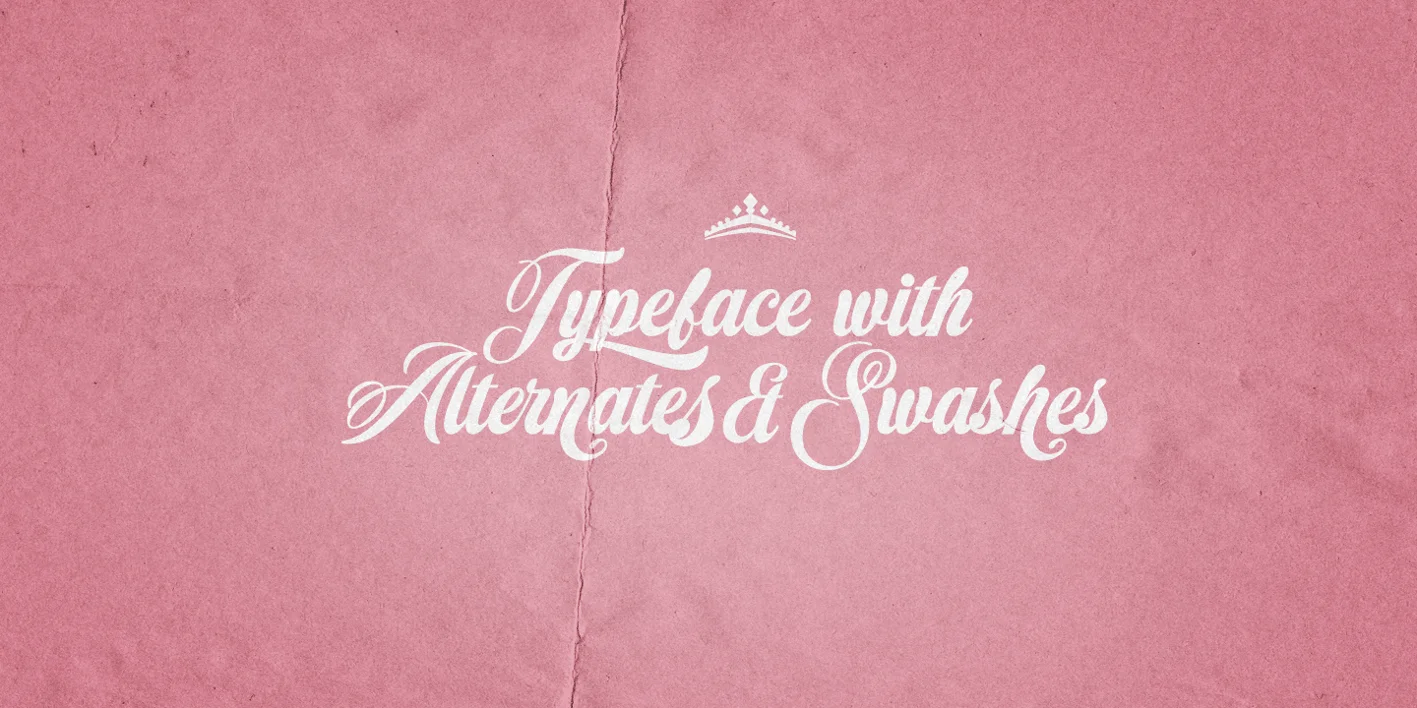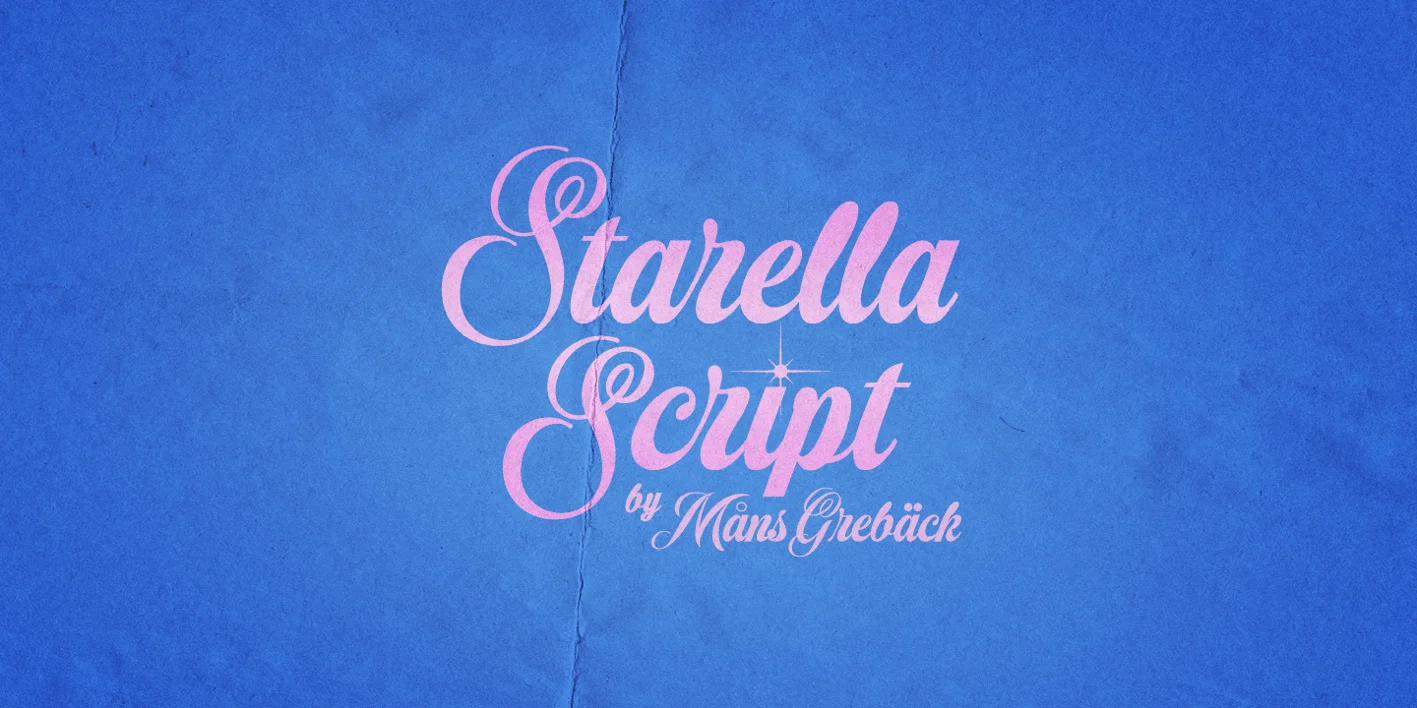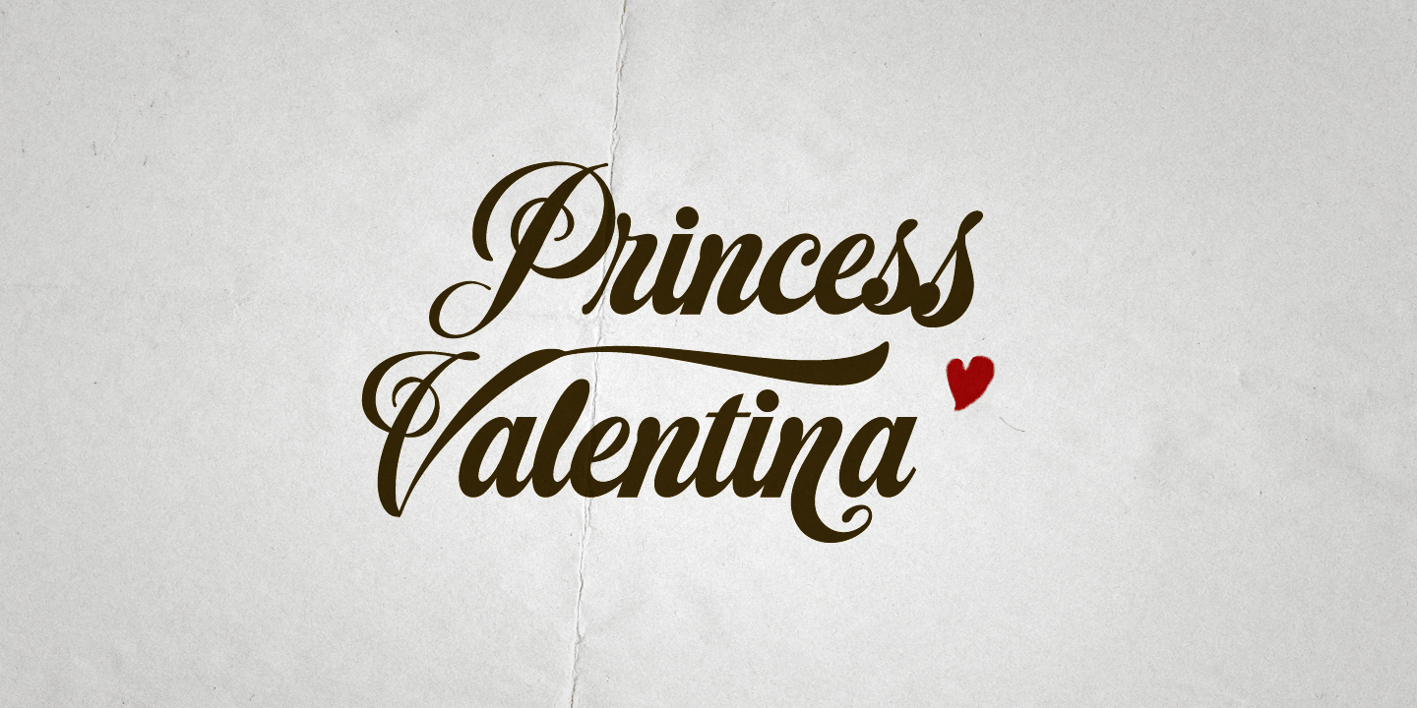
Starella Script Font
When a design brief calls for both visual harmony and precise spacing and immediate visual impact, type choices matter — Starella Script answers that brief. The typeface brings an elegant, calligraphic sensibility to a broad range of creative disciplines, with strong typographic hierarchy support that holds up whether the work is print-first or screen-first.
In practice, Starella Script proves particularly effective for perfume labels, advertising campaigns, wedding invitations, feminine branding, luxury stationery. Designers reaching for it find that the type decisions feel resolved rather than laboured — a useful quality when client timelines are tight.
The range of applications extends to greeting cards, brand identity systems, social media graphics, logo design. That breadth is deliberate: the proportions and spacing were stress-tested across a wide range of mock briefs before the typeface was finalised.
Pairing Starella Script with a contrasting serif or a neutral grotesque gives mixed-format layouts a clear visual grammar without requiring constant size adjustments to establish hierarchy.
Motion designers building title sequences and lower thirds find Starella Script a reliable choice for projects that demand both personality and restraint. The design avoids the self-conscious quirkiness that dates quickly, settling instead for considered distinctiveness that holds up over time.